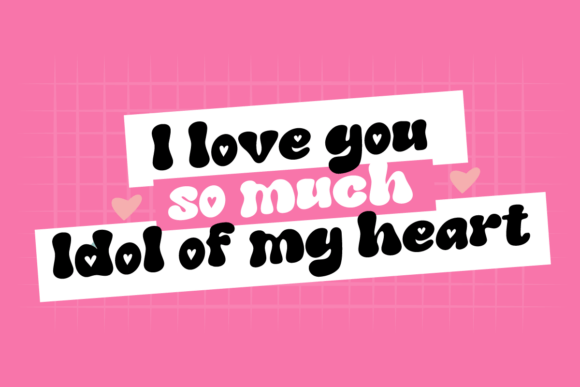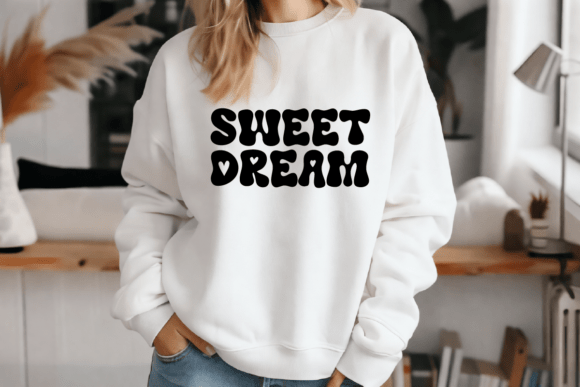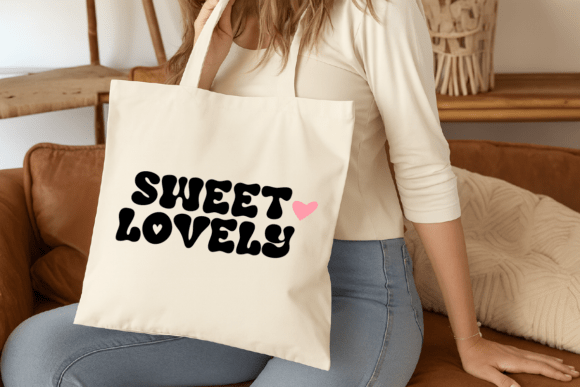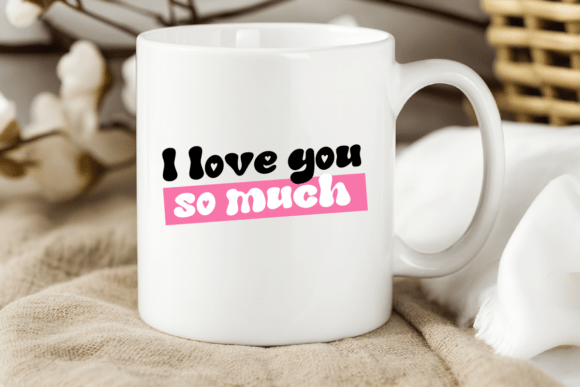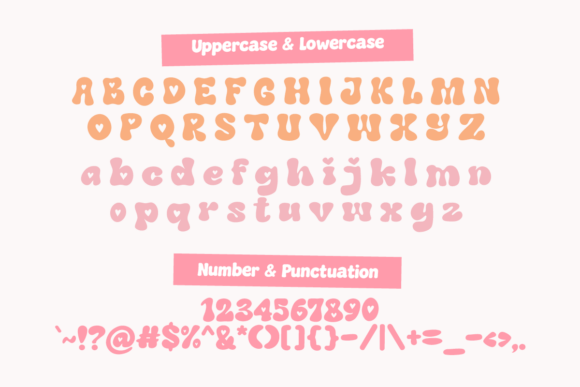
Groovy Holiday Font: Bringing Retro Vibes to Your Designs
Are you looking for a font that embodies the fun, cheerful, and nostalgic vibes of the 60s and 70s? Look no further than the Groovy Holiday Font! This cute and playful retro display font is perfect for designers and crafters who want to add a sweet and happy personality to their designs. In this article, we’ll dive into the features and benefits of the Groovy Holiday Font, and explore how you can use it to create stunning designs that stand out.
What is Groovy Holiday Font?
Groovy Holiday Font is a bold, rounded, and bubbly display font inspired by the groovy vibes of the 1960s and 1970s. Its letterforms are carefully crafted to evoke a sense of fun, cheerfulness, and nostalgia, making it perfect for designs that require a playful and retro touch. Whether you’re creating t-shirts, stickers, mugs, greeting cards, kids’ designs, branding, posters, packaging, or social media graphics, this font is sure to bring a smile to your audience’s faces.
Key Features of Groovy Holiday Font
• Retro-inspired design: Groovy Holiday Font is heavily influenced by the typography of the 60s and 70s, with bold, rounded, and bubbly letterforms that scream retro vibes.
• Cute and playful: This font is designed to be fun and cheerful, making it perfect for designs that require a lighthearted and playful touch.
• Versatile: Groovy Holiday Font can be used for a wide range of design projects, from t-shirts and stickers to branding and packaging.
• Easily readable: Despite its bold and playful design, Groovy Holiday Font is surprisingly easy to read, making it perfect for headlines, titles, and short text.
Benefits of Using Groovy Holiday Font
So, why should you choose Groovy Holiday Font for your designs? Here are just a few benefits of using this amazing font:
• Adds a retro touch: Groovy Holiday Font instantly adds a retro touch to your designs, making them stand out from the crowd.
• Evokes emotions: The playful and cheerful design of this font is sure to evoke emotions and create a connection with your audience.
• Perfect for kids’ designs: Groovy Holiday Font is a great choice for kids’ designs, such as children’s books, stickers, and t-shirts.
• Great for branding: This font can help you create a unique and memorable brand identity that stands out from the competition.
Design Ideas Using Groovy Holiday Font
Now that we’ve explored the features and benefits of Groovy Holiday Font, let’s dive into some design ideas to get you started:
• T-shirts and hoodies: Use Groovy Holiday Font to create fun and playful designs for t-shirts and hoodies.
• Stickers and labels: This font is perfect for stickers and labels, adding a retro touch to your products.
• Mugs and water bottles: Groovy Holiday Font is a great choice for mugs and water bottles, adding a playful touch to your designs.
• Greeting cards and invitations: Use this font to create fun and playful greeting cards and invitations for parties and special occasions.
• Kids’ designs: Groovy Holiday Font is perfect for kids’ designs, such as children’s books, stickers, and t-shirts.
• Branding and packaging: This font can help you create a unique and memorable brand identity that stands out from the competition.
• Posters and flyers: Use Groovy Holiday Font to create eye-catching posters and flyers for events and promotions.
• Social media graphics: This font is perfect for social media graphics, adding a playful touch to your posts and stories.
Font Name Groovy Holiday Font
Author Inani Type
In conclusion, Groovy Holiday Font is a must-have for designers and crafters who want to add a retro touch to their designs. With its bold, rounded, and bubbly letterforms, this font is perfect for a wide range of design projects, from t-shirts and stickers to branding and packaging. Its playful and cheerful design is sure to evoke emotions and create a connection with your audience. So why wait? Get your hands on Groovy Holiday Font today and start creating stunning designs that stand out!